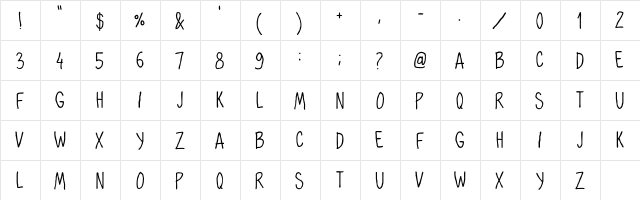
OhMaria Regular
Design Context for OhMaria Typeface
OhMaria offers clean, dependable letterforms without strong stylistic allegiance, making it a practical choice for designers who need flexibility.